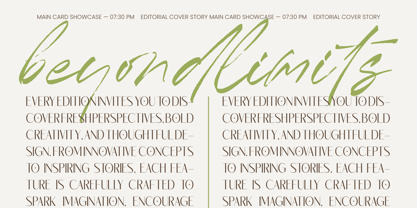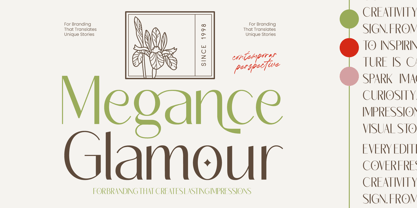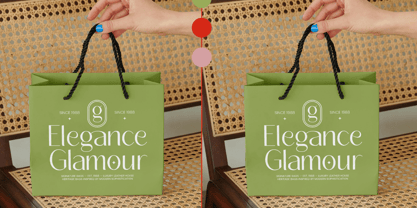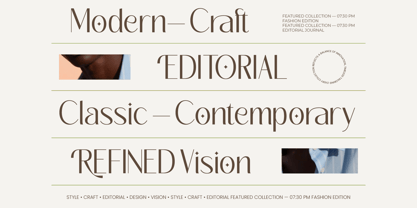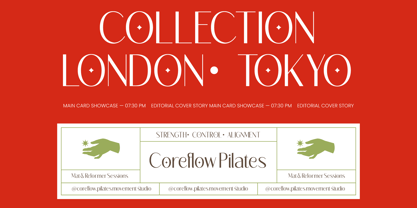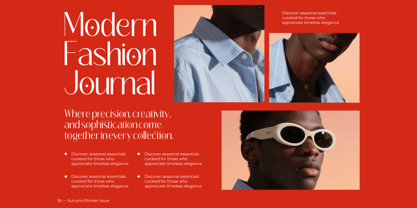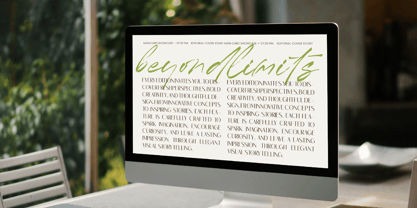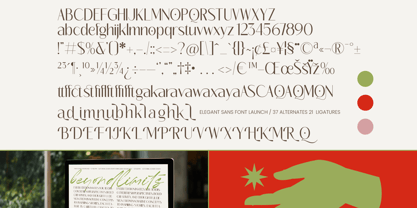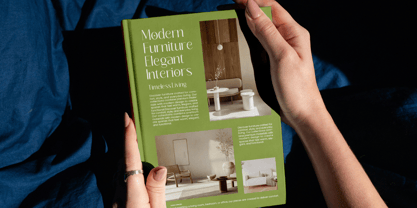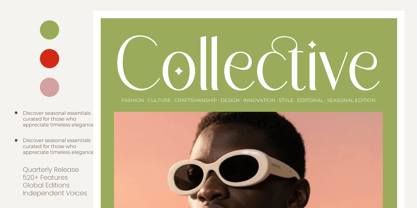
Megance Glamour
Die Schriftfamilie Megance Glamour wurde von Heru Utama Putra entworfen und von Timelesstype Studio veröffentlicht. Megance Glamour enthält 2 Stile und Familienpaketoptionen. Mehr über diese Familie
Elevate your creative projects to a new standard of sophistication with Megance Glamour - Elegant Sans Font. This high-contrast sans-serif typeface blends a contemporary aesthetic with classic grace, offering designers a powerful tool for sophisticated typography. Its slender proportions and refined curves ensure that every word makes a statement of pure luxury and professional excellence.